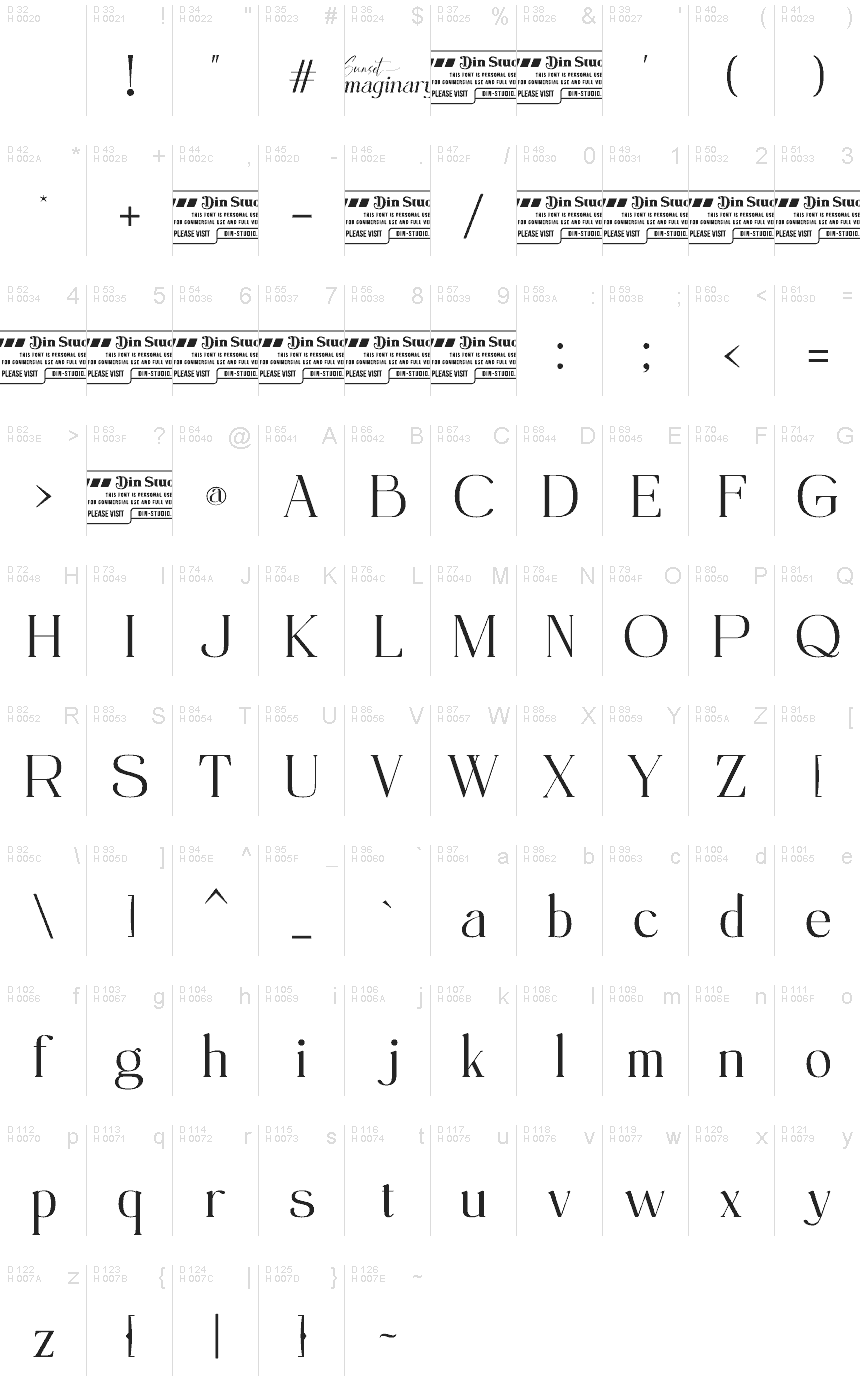
Sunset Imaginary Personal Use
Sunset Imaginary font by Din Studio is an elegant free serif font with a classic refined look that stands out thanks to its beauty and sophistication. Giving the natural effect of handwriting, the modern serif has a memorable exquisite style that dominates any design project that you envision whether it’s personal or commercial.